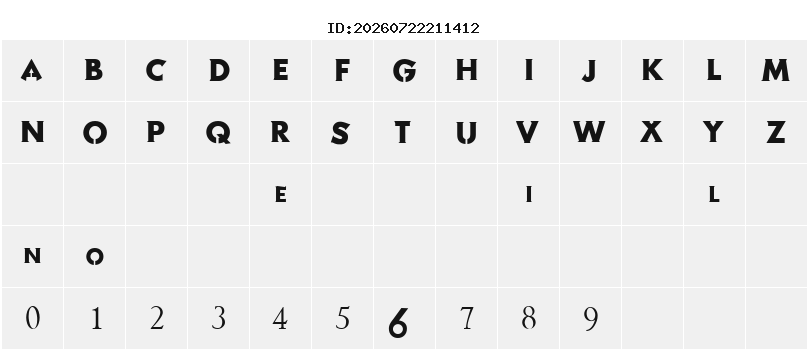
MuOnline Preview
About MuOnline.ttf
MuOnline.ttf is a modern, elegant sans-serif font designed for ultimate readability and visual harmony. Perfect for branding, headlines, web design, and print materials.